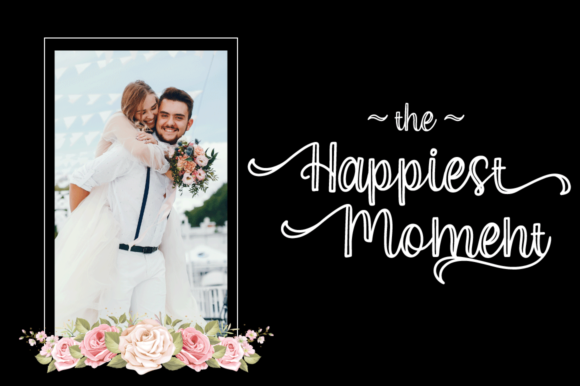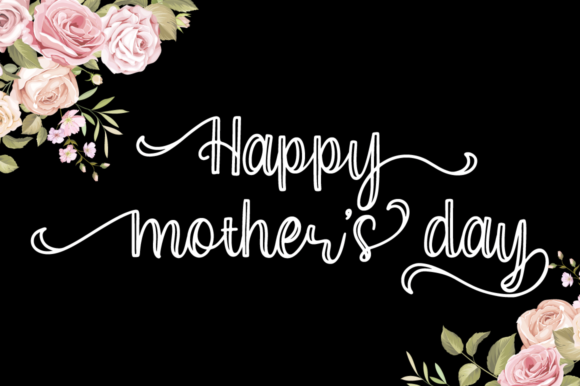
Ceylonia Font
db-ku.com - Script & Handwritten -- Ceylonia is a beautiful handwritten font. It’s inspired by outline lettering and includes 6 stylistic set that you can combine to create outstanding designs.